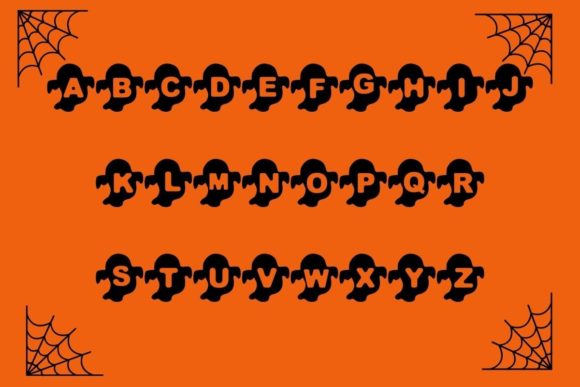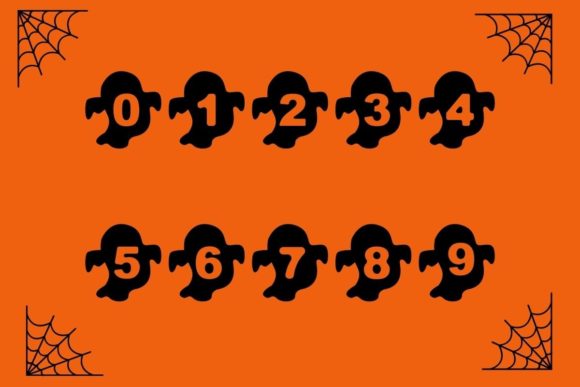
Unleash the Spookiness: Boo Ghost Halloween Font
As the spookiest time of the year approaches, designers and crafters are on the lookout for the perfect font to add a touch of eeriness to their creations. Look no further than the Boo Ghost Halloween font, a cool and creepy decorative font that’s sure to send chills down the spine. In this article, we’ll dive into the world of Boo Ghost Halloween font, exploring its features, uses, and tips for incorporating it into your designs.
What is Boo Ghost Halloween Font?
Boo Ghost Halloween font is a unique and eye-catching decorative font designed specifically for the Halloween season. Its creepy and playful design makes it perfect for creating spooky signs, posters, invitations, and other Halloween-themed projects. The font features ghostly characters, bats, spiders, and other Halloween icons, making it a great addition to any design that requires a touch of eeriness.
Features of Boo Ghost Halloween Font
- Creepy and Playful Design: Boo Ghost Halloween font boasts a distinctive design that’s both creepy and playful, making it perfect for Halloween-themed projects.
- Ghostly Characters: The font features ghostly characters that add a touch of spookiness to any design.
- Halloween Icons: The font includes various Halloween icons, such as bats, spiders, and jack-o-lanterns, making it a great resource for designers and crafters.
Uses of Boo Ghost Halloween Font
Boo Ghost Halloween font is a versatile font that can be used in a variety of projects, including:
- Halloween Invitations: Create spooky and eye-catching invitations for Halloween parties and events.
- Posters and Signs: Design creepy posters and signs to advertise Halloween events or to decorate your home or office.
- Craft Projects: Add a touch of eeriness to your craft projects, such as scrapbooking, card making, and DIY decorations.
- Social Media Graphics: Create spooky social media graphics to promote your Halloween-themed events or products.
Tips for Using Boo Ghost Halloween Font
Here are some tips for using Boo Ghost Halloween font in your designs:
- Pair with Other Fonts: Pair Boo Ghost Halloween font with other fonts to create a unique and eye-catching design.
- Experiment with Colors: Experiment with different colors to create a spooky and eerie atmosphere.
- Add Graphics: Add graphics and images to enhance your design and make it more visually appealing.
| Font Name | Boo Ghost Halloween Font |
Boo Ghost Halloween font is a cool and creepy decorative font that’s perfect for designers and crafters looking to add a touch of eeriness to their Halloween-themed projects. With its unique design, ghostly characters, and Halloween icons, this font is sure to send chills down the spine. Whether you’re creating invitations, posters, signs, or craft projects, Boo Ghost Halloween font is a great resource to have in your toolkit. So, download Boo Ghost Halloween font today and let yourself be amazed by the spooky and creative designs you can create!
- What is Boo Ghost Halloween font?: Boo Ghost Halloween font is a decorative font designed specifically for the Halloween season.